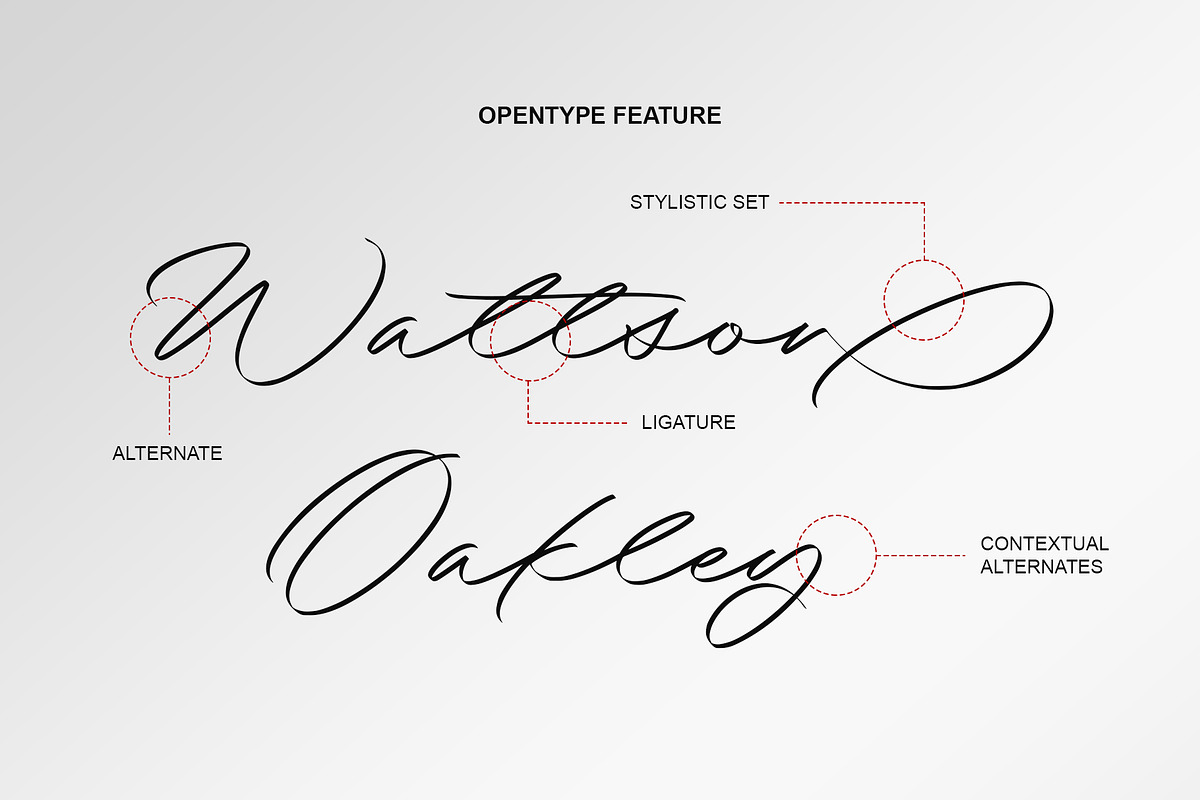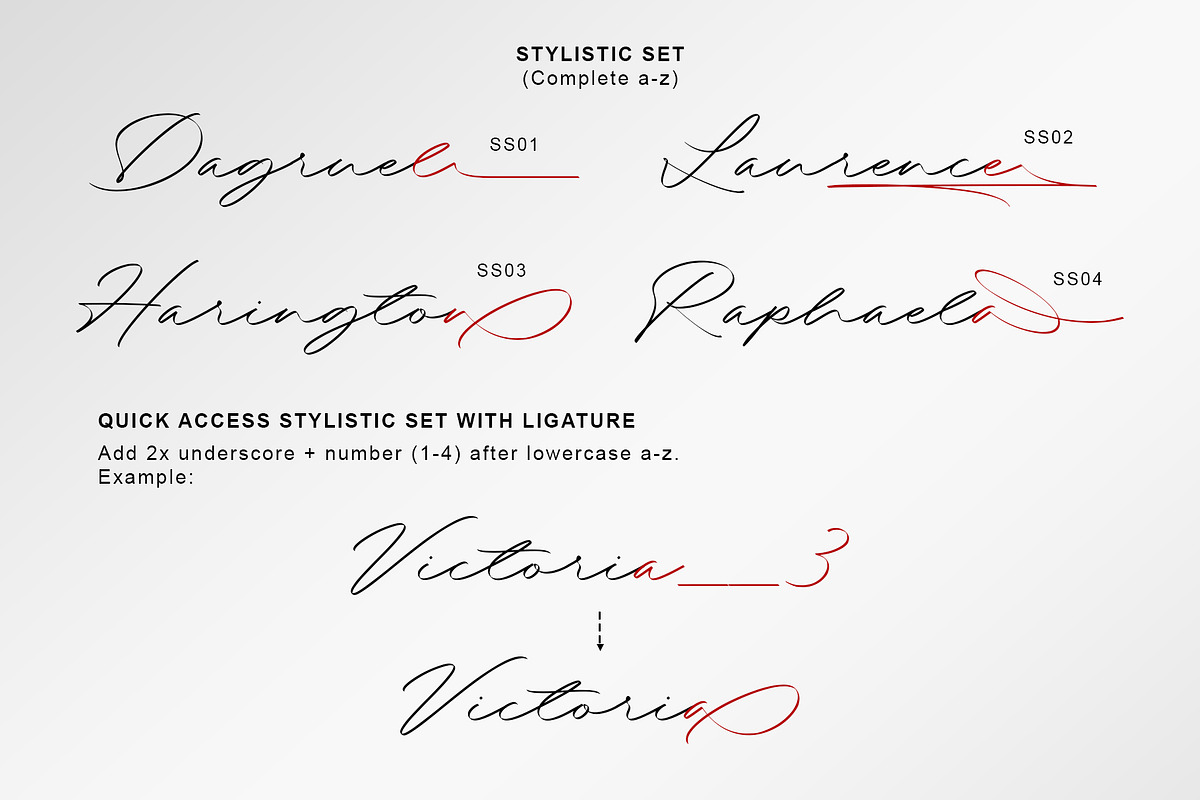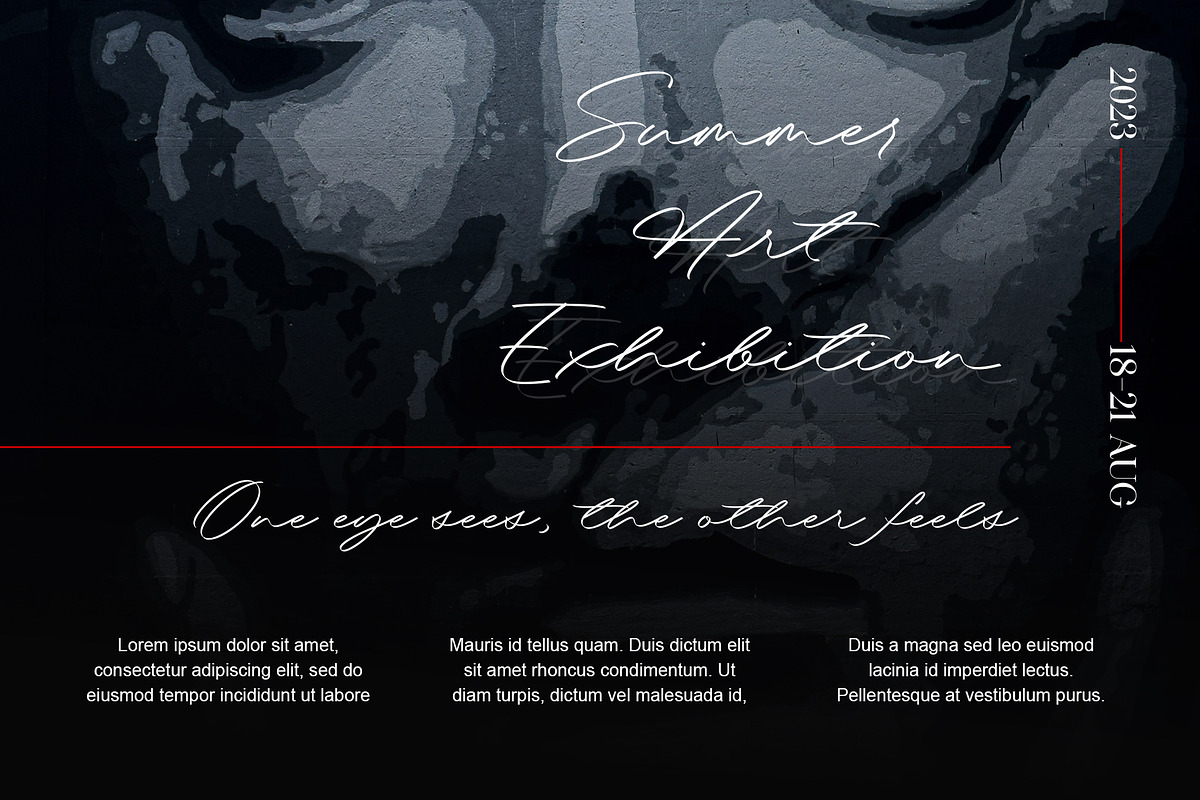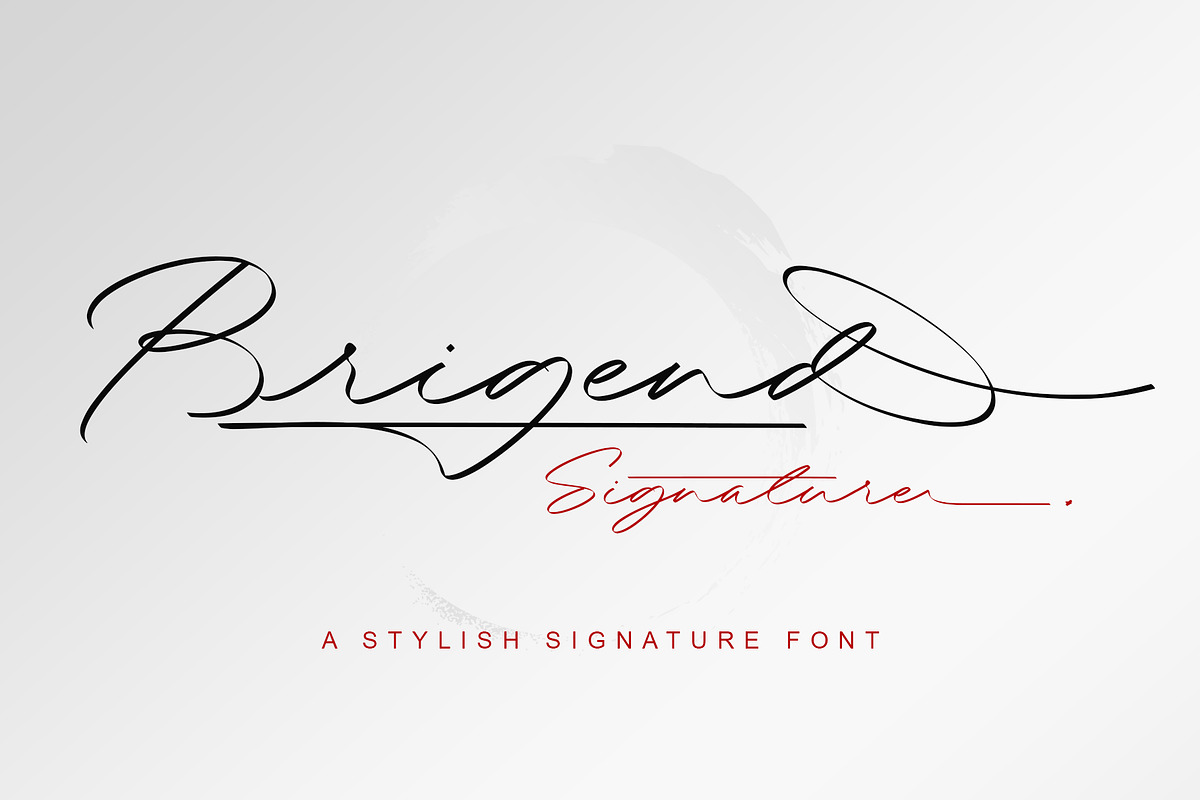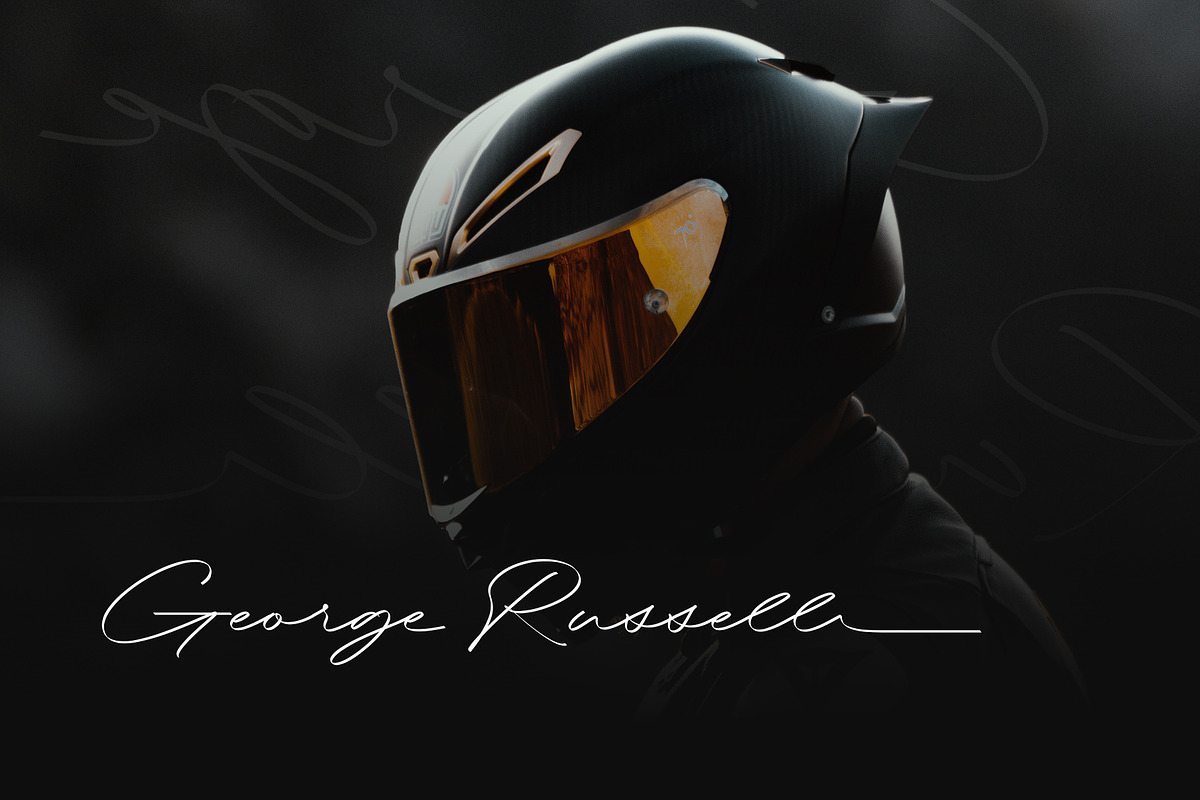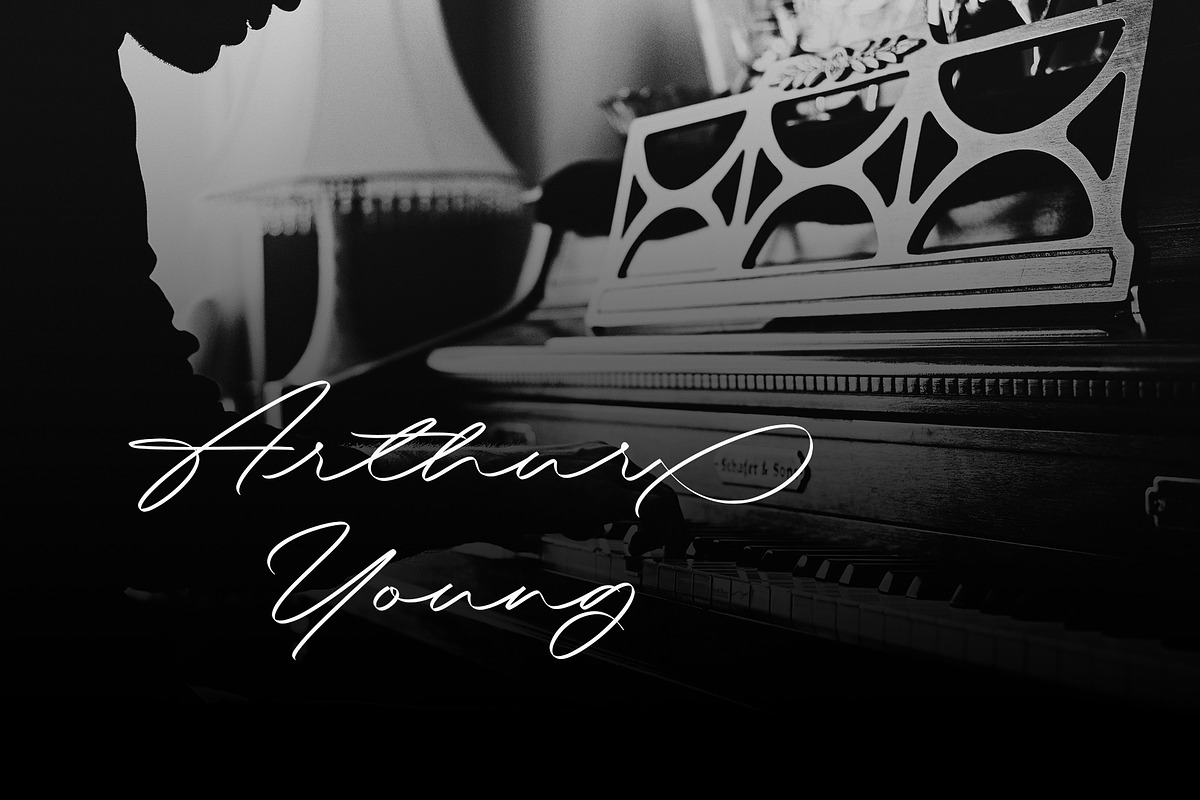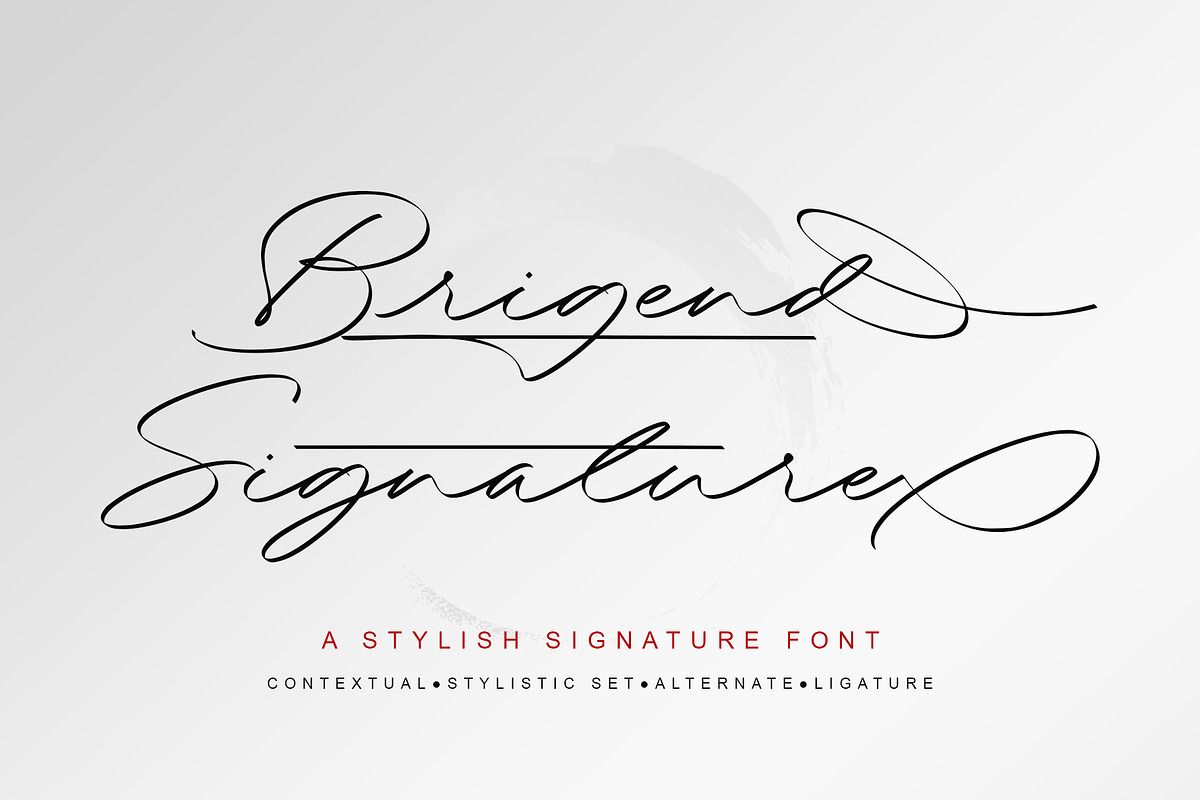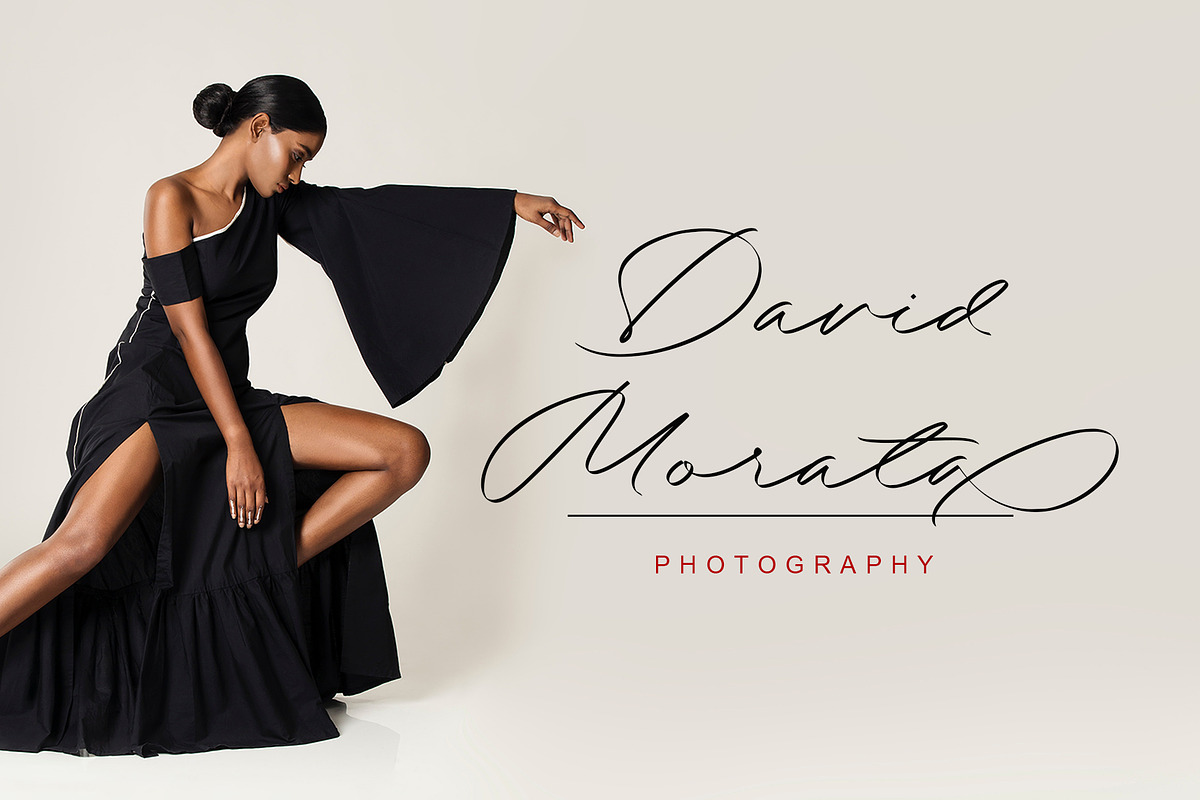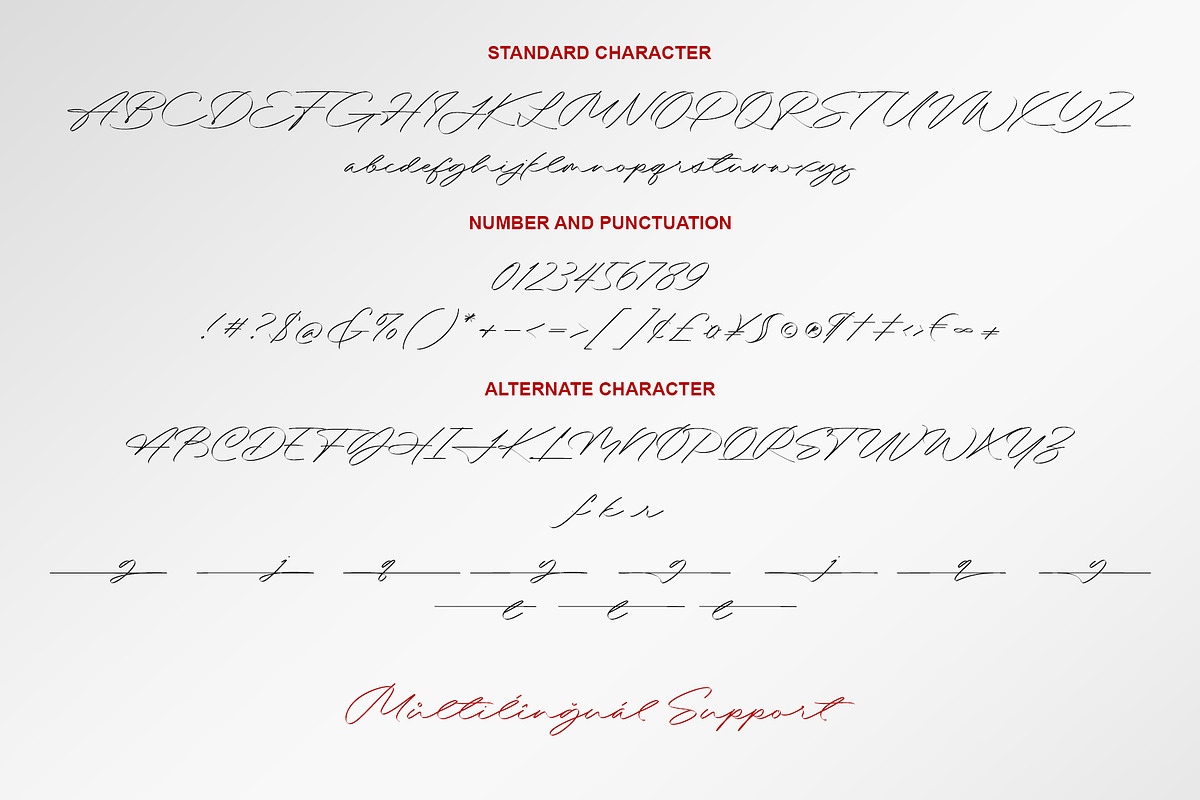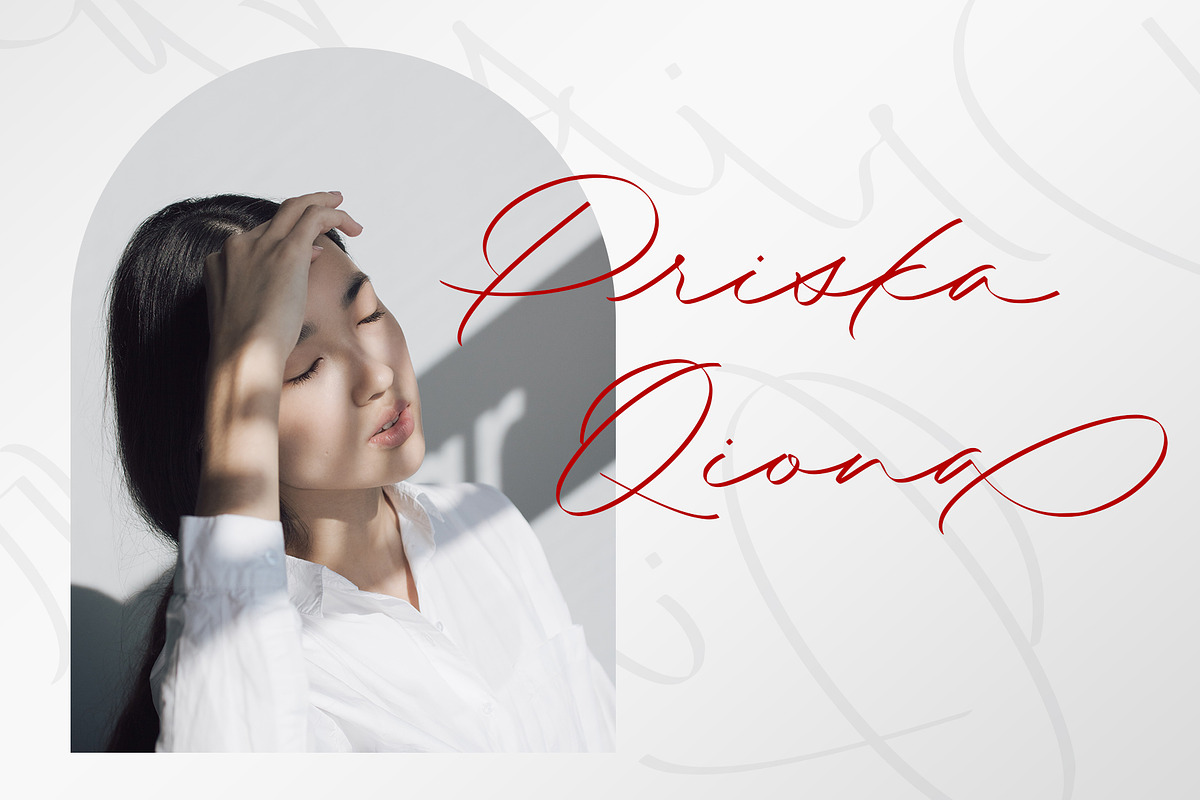
Brigend | Stylish Signature
Brigend Signature is a stylish signature font, with a natural & stylish flow. Brigend Signature Font is perfect for many different project such as logos & branding, invitation, stationery, wedding designs, social media posts, advertisements, product packaging, product designs, label, photography, watermark, special events or anything.
- Stylistic Set
- Contextual Alternate
Quick access
- SS01: Add 2x underscore + one. Ex: __1
- SS02: Add 2x underscore + two. Ex: __2
- SS03: Add 2x underscore + three. Ex: __3
- SS04: Add 2x underscore + four. Ex: __4